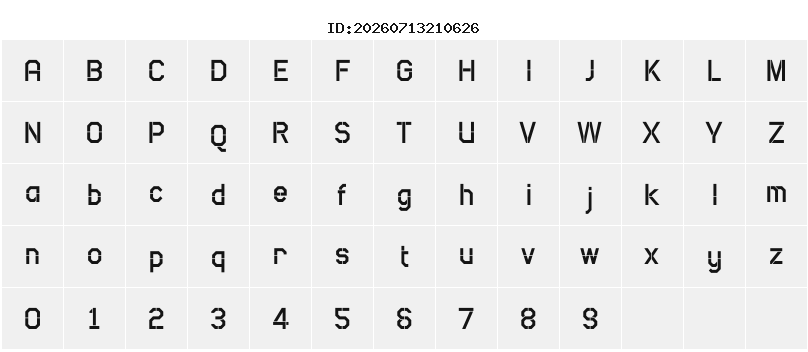
Camo SansHeavy Preview
• Font Name: Camo SansHeavy
• Full Font Name: Camo SansHeavy
About Camo SansHeavy.ttf
Camo SansHeavy.ttf is a modern, elegant sans-serif font designed for ultimate readability and visual harmony. Perfect for branding, headlines, web design, and print materials.